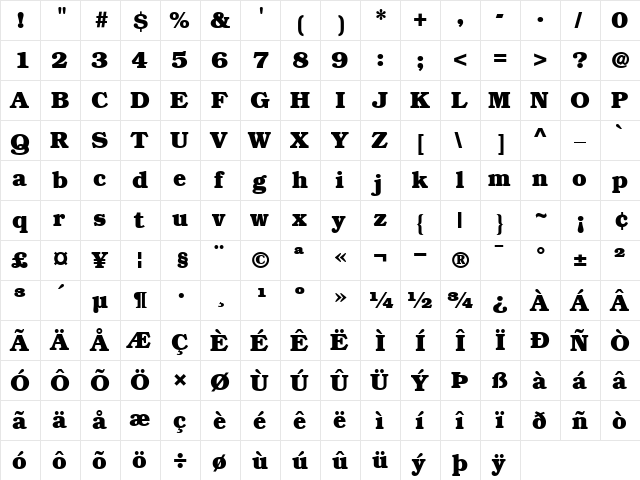
ITCmanBold-Book Book Font Preview
ITCmanBold-Book Book
Design Context for ITCmanBold-Book Typeface
ITCmanBold-Book takes a measured approach to typography — its balanced proportions and neutral character make it a reliable workhorse for both digital and print work. The heavy weight commands attention and anchors typographic hierarchies.